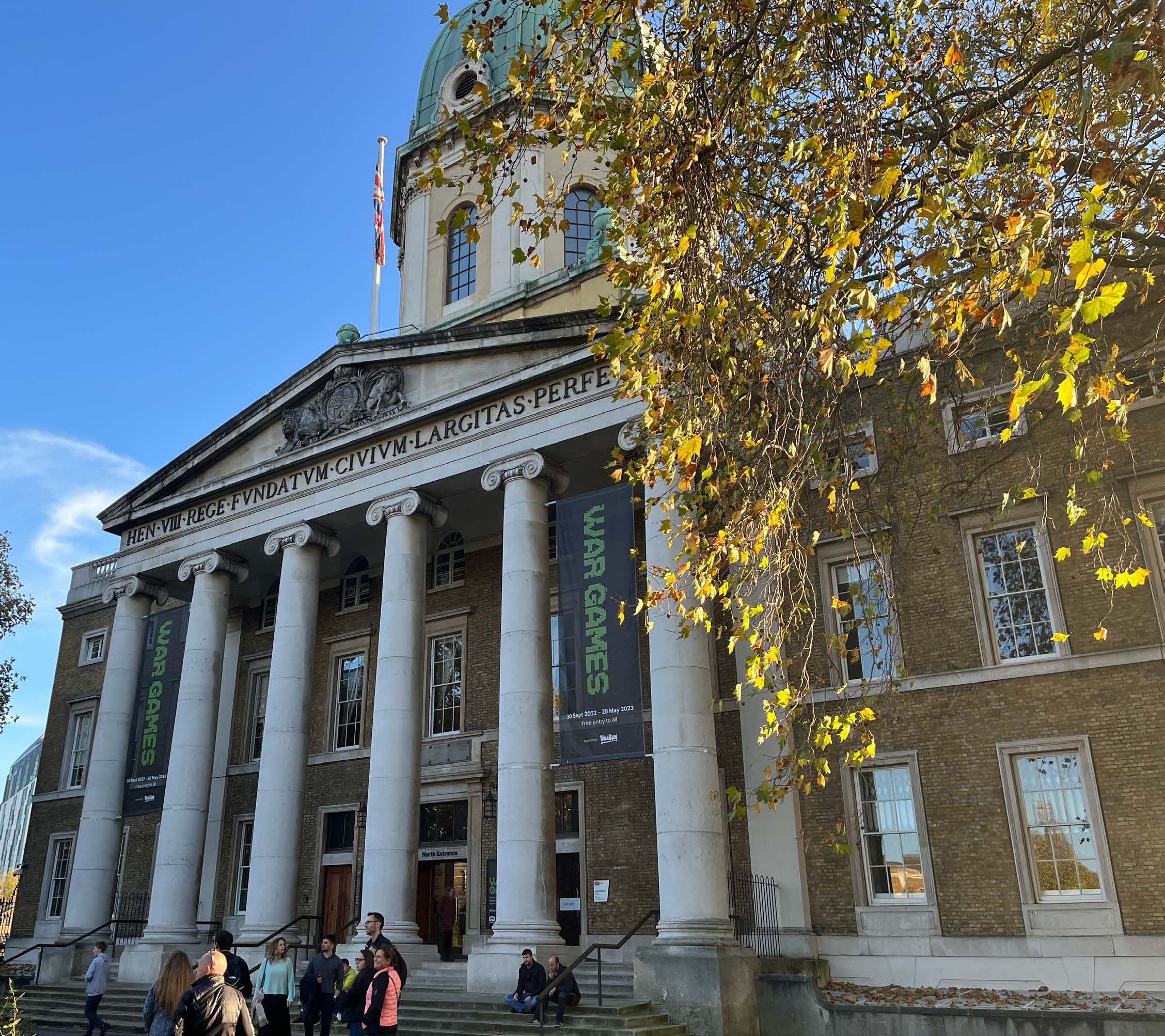
The Blueprint Of War is an interpretation of the Imperial War Museum’s layout. An experimental, semi modular, sans serif typeface. Firstly, every letter follows the same rules as every nation must abide to the laws of war (IHL). Secondly, most letters share similar characteristics while others are more unique. The Purpose of this was to convey two opposing factions coming together. However, they are divided by their country and ideals, to which the foundation of war has been built. As the weight of the font is thick its designed to be used in Books, posters and magazines as headings.